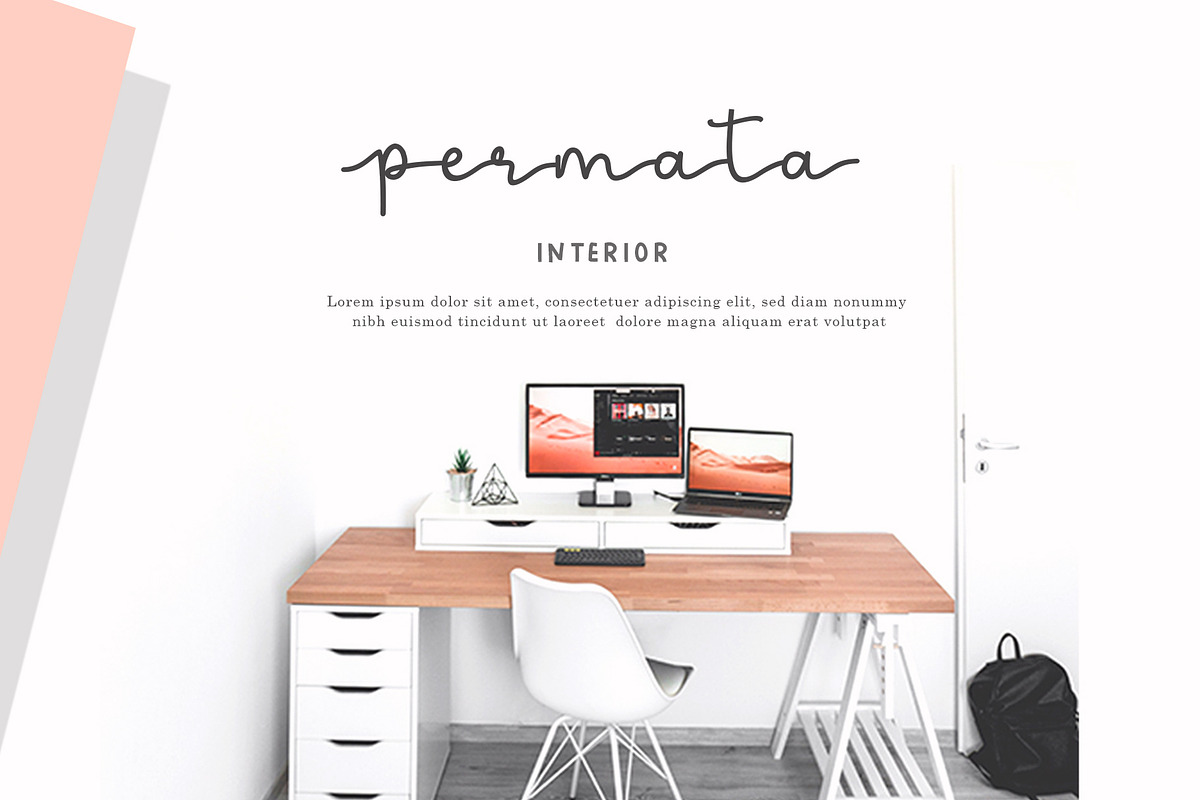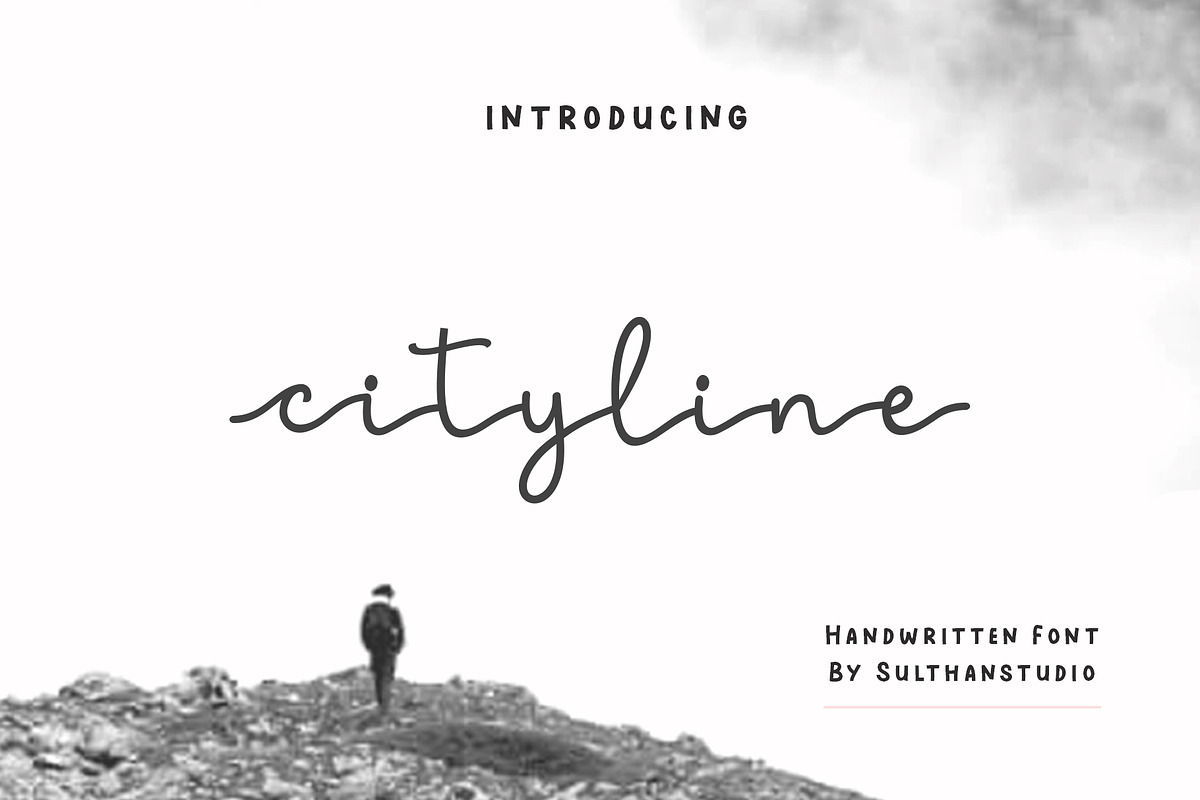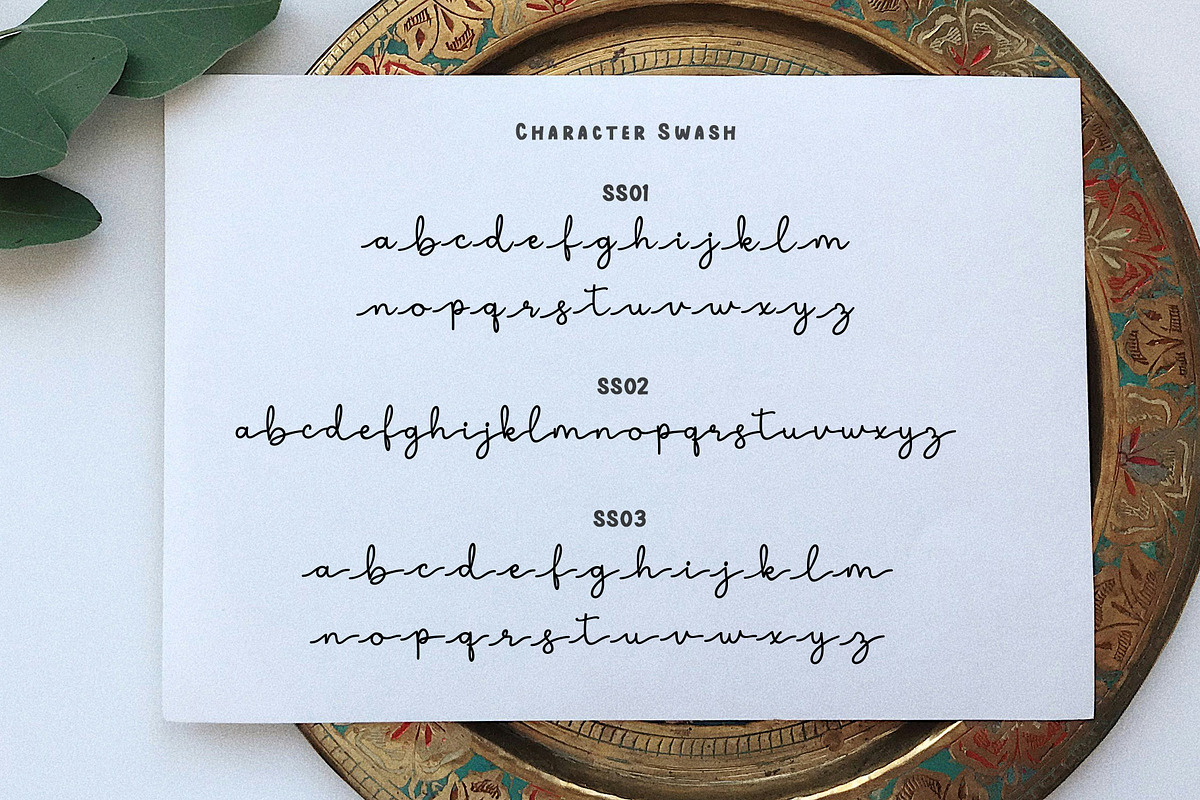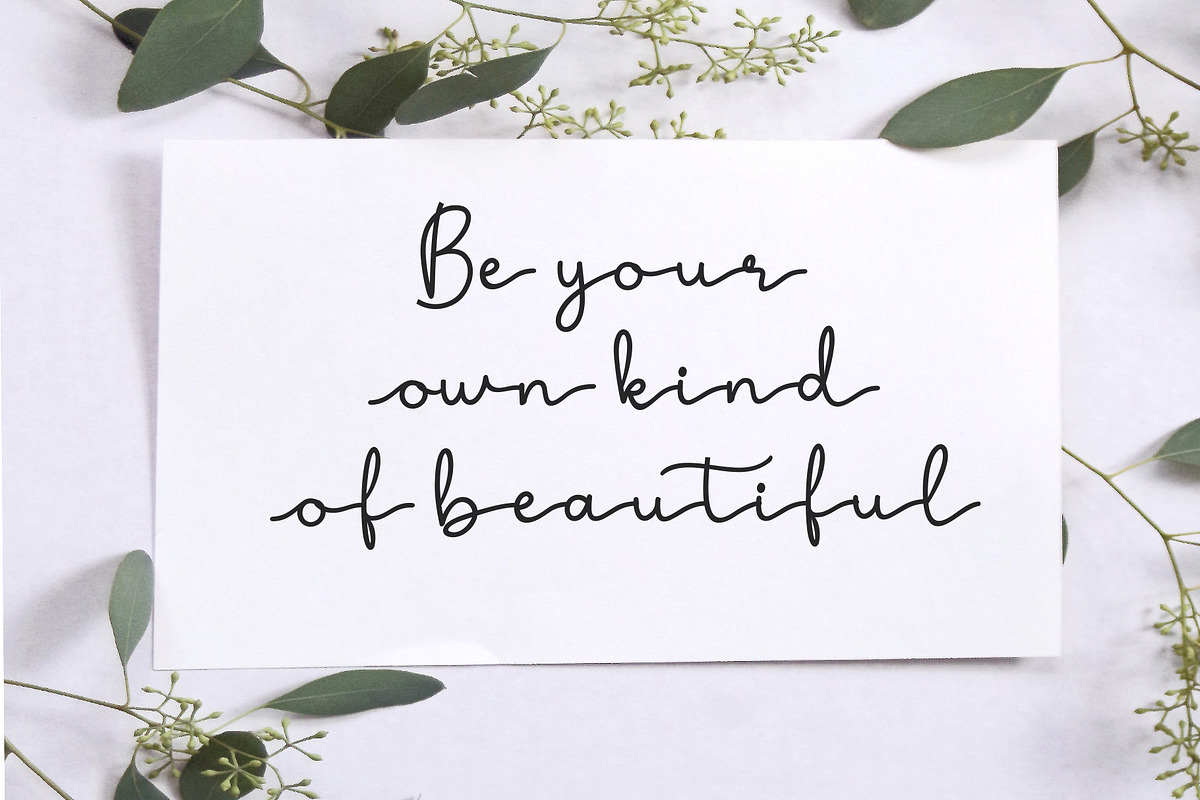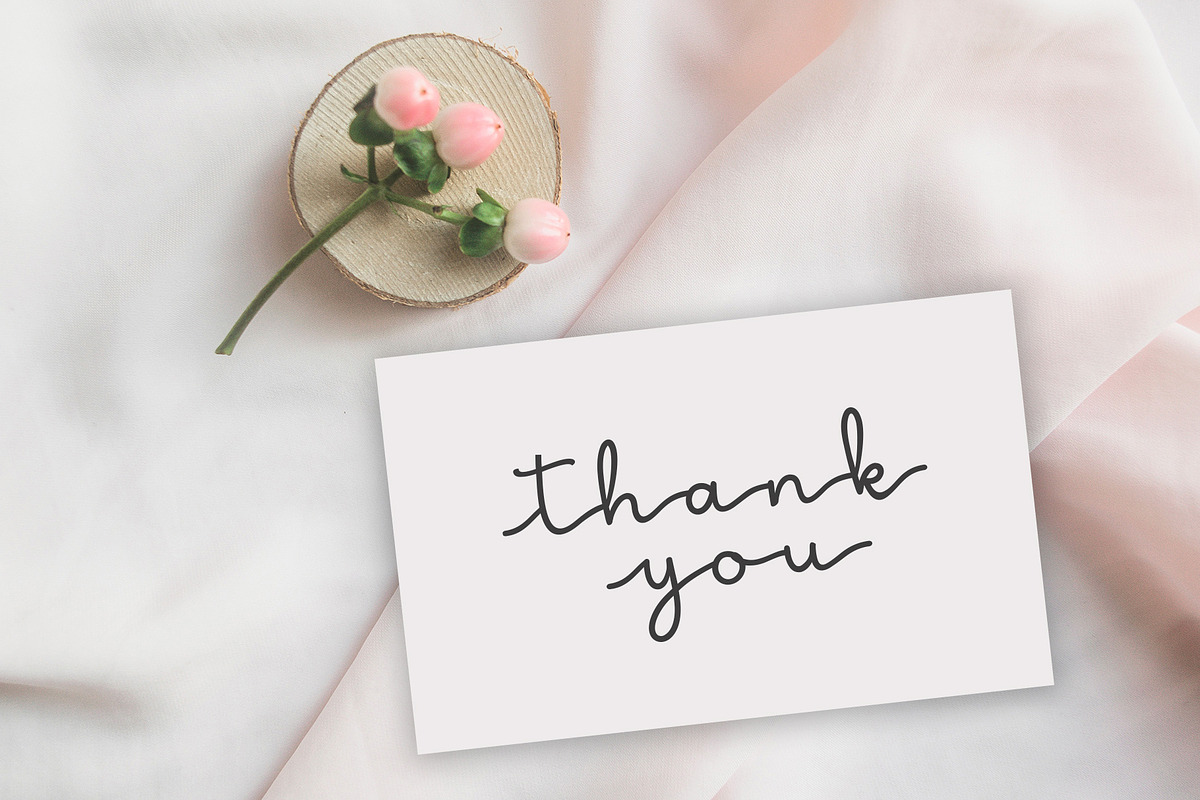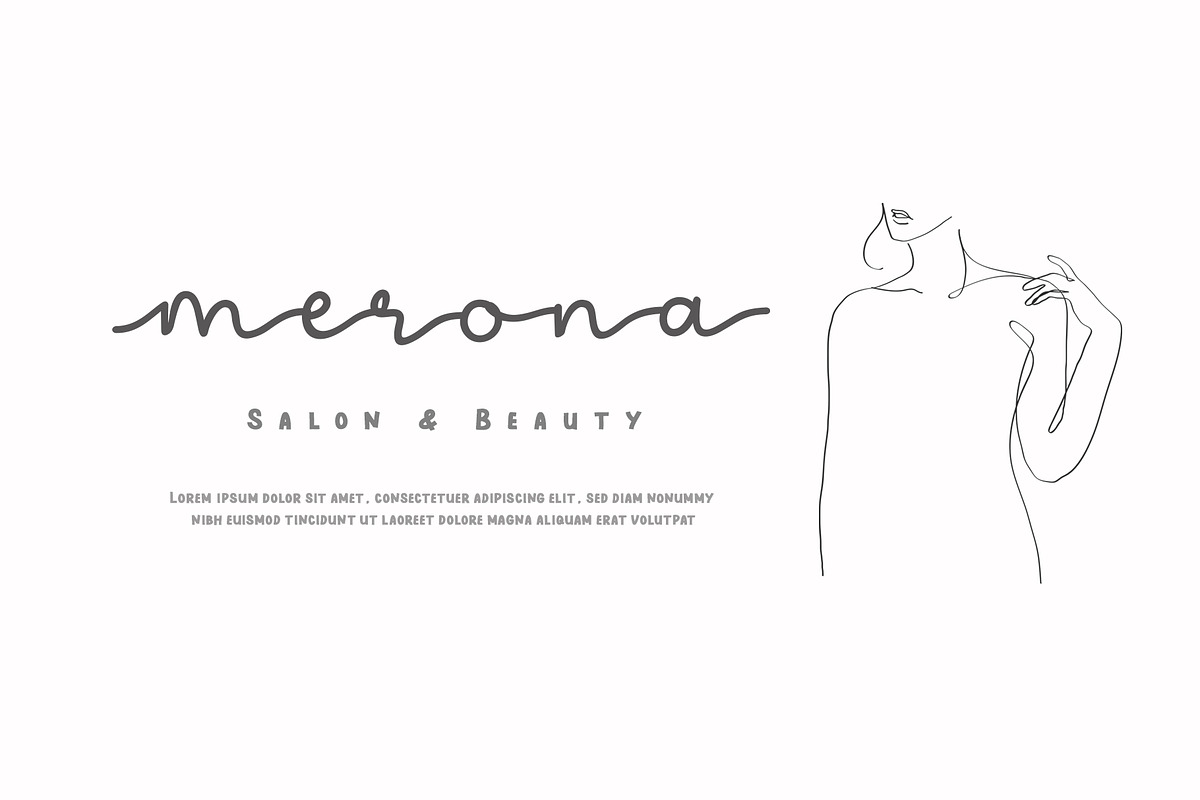
City line
City line is an elegant handwritten monoline font with clean and flowing lines. This font comes with front and back swashes for lowercase letters and also ss02 swashes to add letter connections used in writing as shown in the image. This City line font also looks natural when used. This font is PUA encoded and also comes with all uppercase and lowercase characters, numbers, punctuation, language support, and also swashes